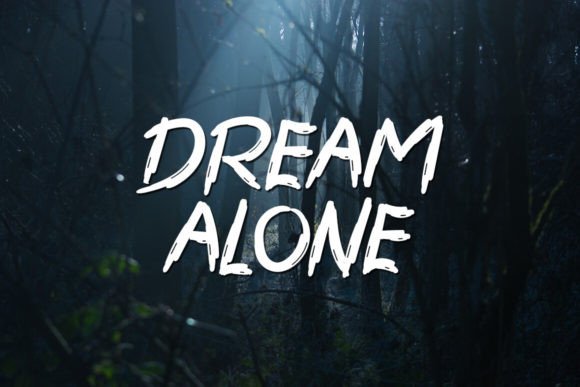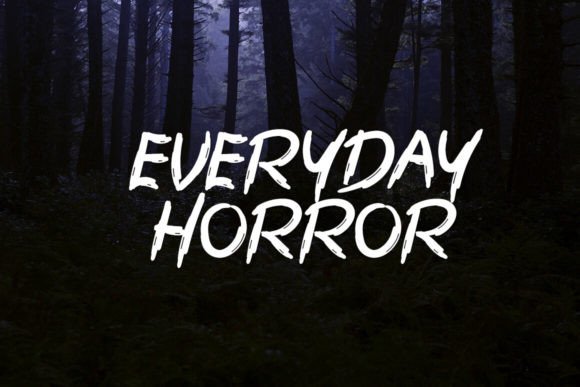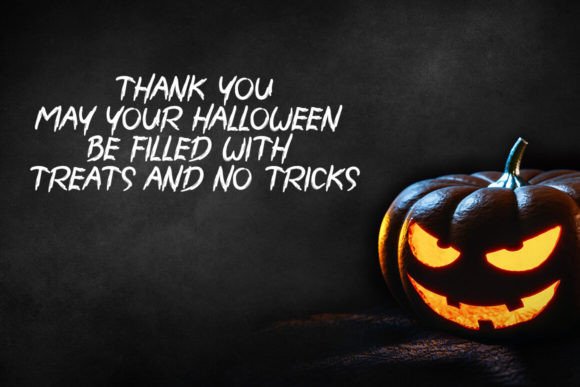
Introducing the Halloween Brushting Font, a masterfully designed display font that’s sure to become a true favorite. This spooky yet elegant font is perfect for designers who want to add a touch of Halloween magic to their designs, from spooky invitations to eerie advertisements. With the Halloween Brushting Font, you’ll be able to bring your creative ideas to the highest level and create a lasting impression on your audience.
Halloween Brushting Font Key Features
- Unique Characteristics: The Halloween Brushting Font features a unique, hand-brushed style with a spooky and playful tone, perfect for Halloween-themed designs and decorations.
- Glyphs and Characters: This font includes a wide range of glyphs and characters, including Latin, Cyrillic, and Greek alphabets, as well as various symbols and punctuation marks.
- Font Style: The Halloween Brushting Font is available in a single style, with a bold and expressive feel that’s perfect for making a statement in designs.
Halloween Brushting Font Review
I recently had the chance to work with the “Halloween Brushting Font” and I must say, it’s a unique and playful addition to any design project. ✨ The font’s brush-like strokes and irregularities give it a hand-drawn feel that’s perfect for creating a spooky or whimsical atmosphere.
One of the things I appreciate about this font is its versatility. ✨ It can be used for a variety of purposes, from title headers to body text, and its boldness makes it perfect for grabbing attention. ✨ The font also includes a range of weights and styles, making it easy to customize to fit your needs.
However, there are a few limitations to consider. ⚠️ The font may be a bit too ornate for some projects, and its irregularities can make it difficult to read in certain situations. ⚠️ Additionally, the font may not be suitable for large blocks of text, as its irregularities can make it appear cluttered and overwhelming.
Overall, I think the “Halloween Brushting Font” is a great addition to any designer’s toolkit. While it may have some limitations, its unique style and versatility make it a great choice for a wide range of projects.
- Unique, hand-drawn feel
- Versatile and suitable for a variety of purposes
- Range of weights and styles available
- May be too ornate for some projects
- Irregularities can make it difficult to read in certain situations
Use the Halloween Brushing Font to create spooky invitations, party decorations, and social media graphics.
Experiment with different font sizes and colors to achieve a creepy or playful effect.
Combine the font with other spooky elements, such as ghosts, bats, and jack-o’-lanterns, to create a haunted atmosphere.